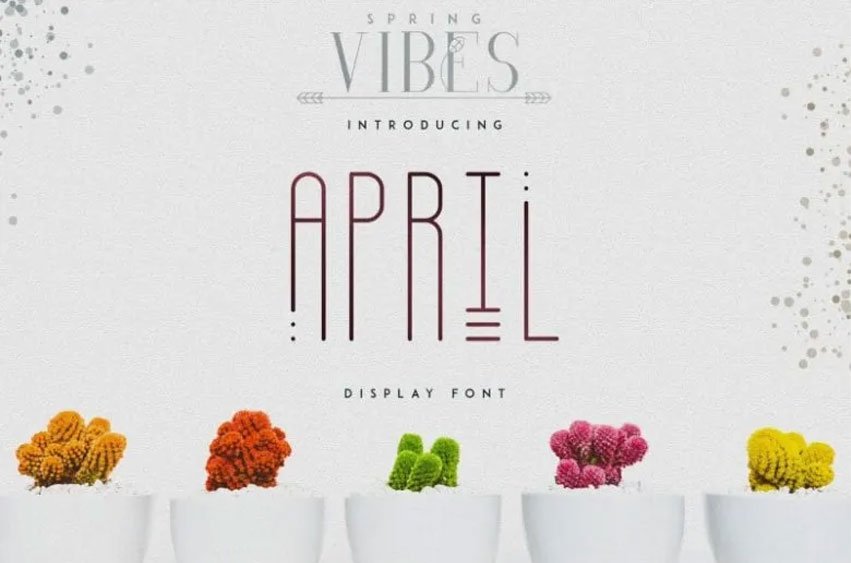
April Display Font The 3rd product from Spring Vibes collection is April Display font. April is a stretched display font with 66 alternatives, multilingual support and photoshop styles. It is a font that looks good in both big and small sizes.
April is the best month for branding projects, home-ware designs, product packaging, wedding invitations and magazine headers or just as a stylish text overlay to any background image.